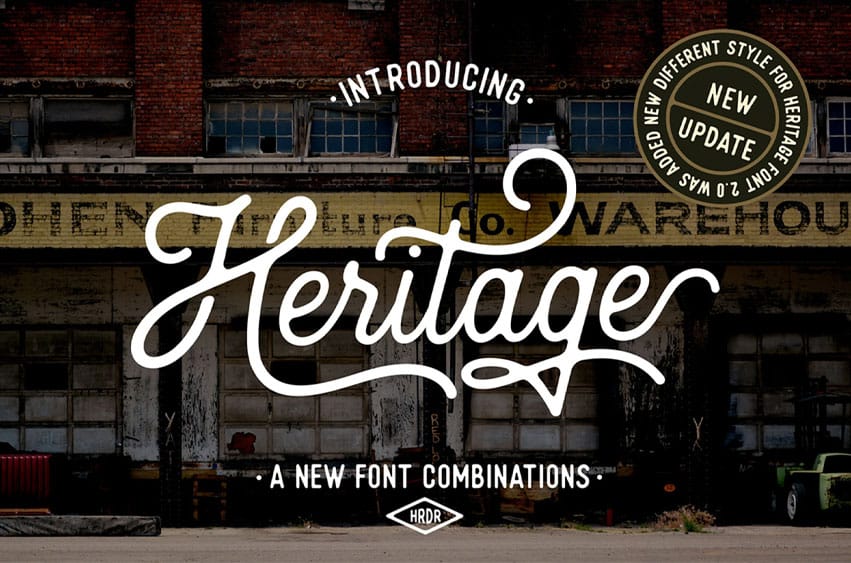
Heritage Combination Font is a handcrafted vintage font with monoline style script and sans. The font uses rounded edges, so this script typeface gives a feel of vintage, classic, old, handmade, and looks like it. The font is well crafted and was carefully added to each character. It is perfect for creating traditional style logos, labels, clothing brand logos, Vintage design, package design, lettering for t-shirts, and many others.
Heritage Font equipped with:
- Uppercase, lowercase, numeral, punctuation, & Symbol
- Stylistic alternates
- Stylistic Set01 – Stylistic Set06
- Swash
Heritage Font 2.0 is equipped with:
- Uppercase, lowercase, numeral, punctuation, & Symbol
- Stylistic Set01 – Stylistic Set09
- Swash
Heritage Sans is equipped with:
- Uppercase, numeral, punctuation, & Symbol
- Stylistic alternates
- Discretionary Ligatures & Ligatures